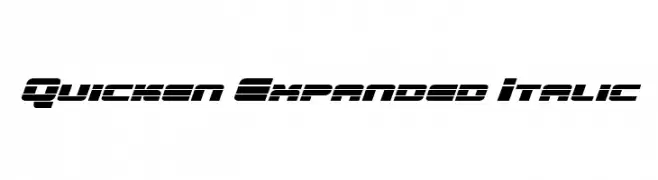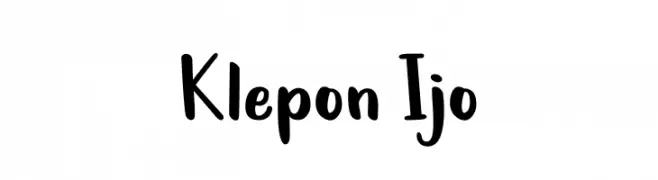
( Here Be Monsters - monsterswithin.com )
A tall, narrow, and modern font with a sleek, minimalistic design.
( Ryan Williamson )
A bold, high-contrast serif font with a dramatic and modern style.
A bold, futuristic font with expanded and italicized characters featuring a segmented design.
( Fonts by www.kimberlygeswein.com - Kimberly Geswein )
A playful, handwritten font with a casual and informal style.
A playful, casual handwritten font with smooth, flowing lines.
( Fonts by www.junkohanhero.com )
A chaotic, distressed font with bold, jagged strokes and a grunge aesthetic.